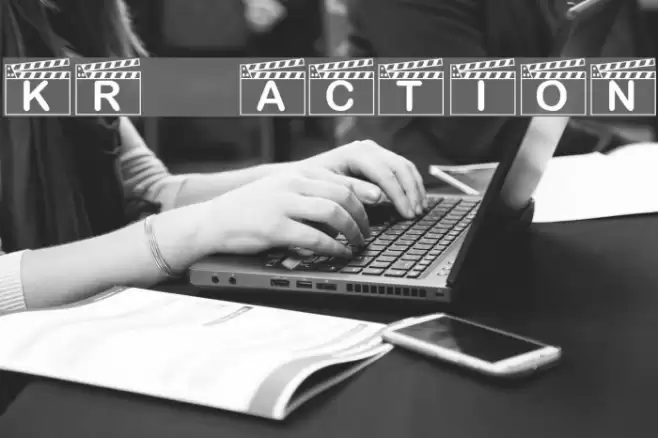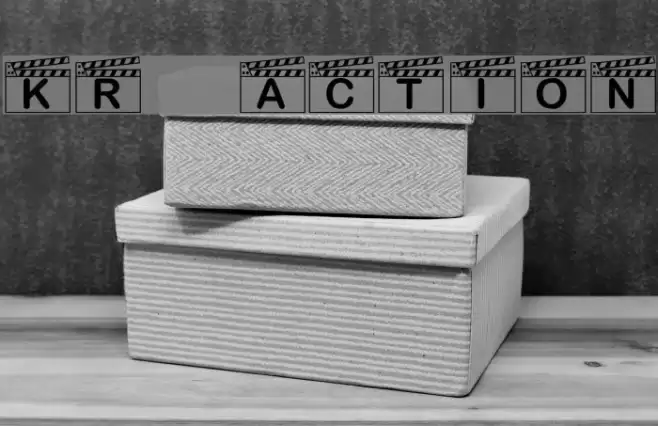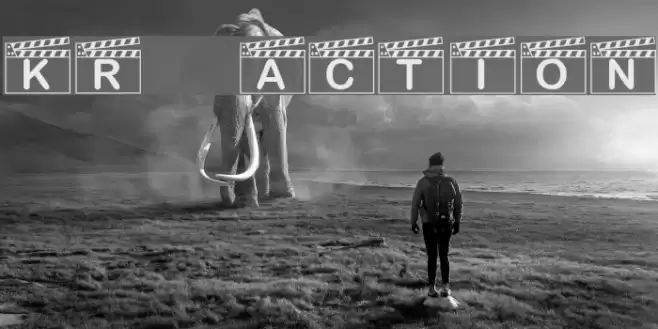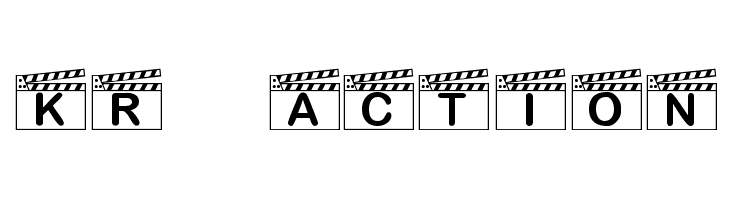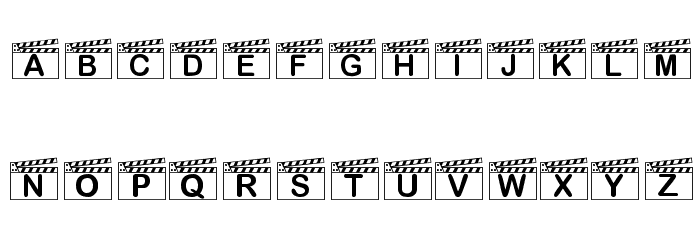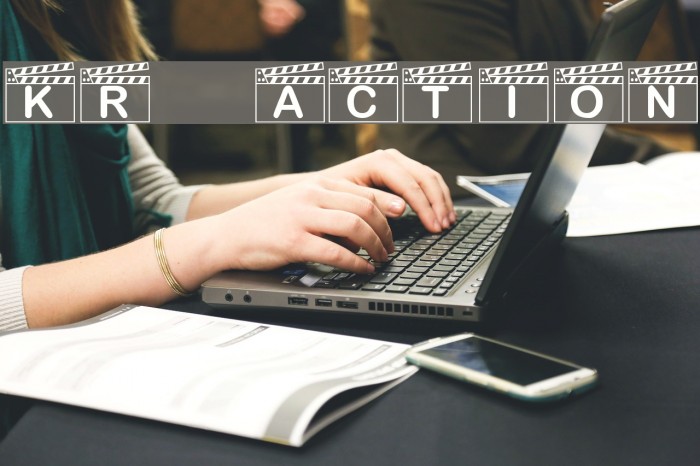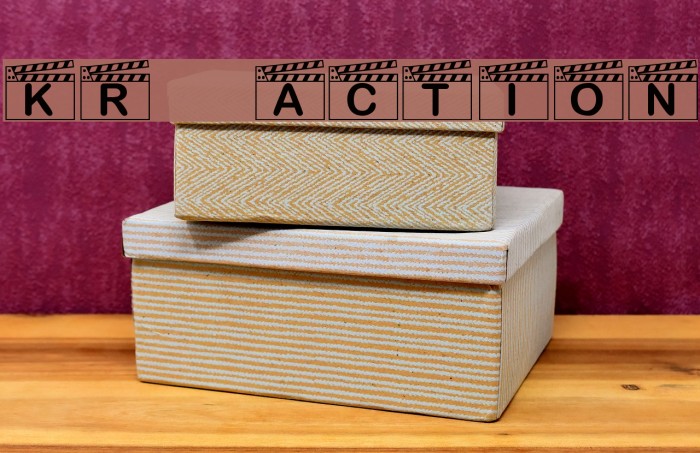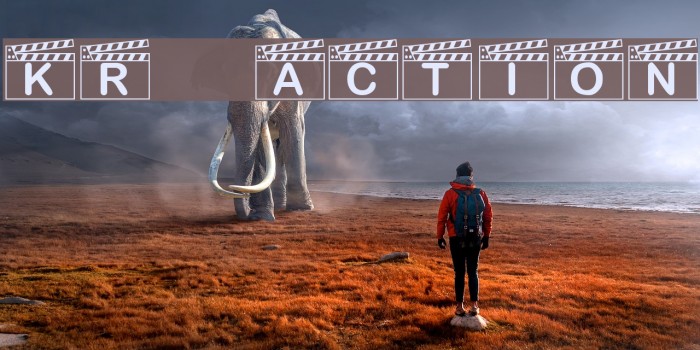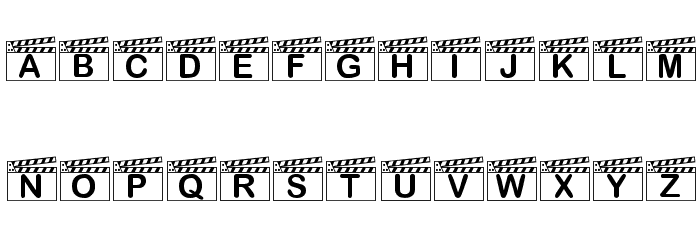
KR Action! Font
KR Action! Description
This font features a unique design where each character is enclosed within a stylized clapperboard frame, reminiscent of film and cinema themes. The letters are bold and uppercase, providing a strong visual impact. The clapperboard design adds a playful and creative touch, making it ideal for projects related to movies, entertainment, or any creative industry. The font's distinct style captures attention and conveys a sense of action and excitement, perfect for headlines or titles that need to stand out.
A bold, cinematic font with characters inside clapperboard frames from Uncategorized fonts.
- Proposed Projects: Ideal for movie posters, film festival materials, entertainment branding, and creative media projects.